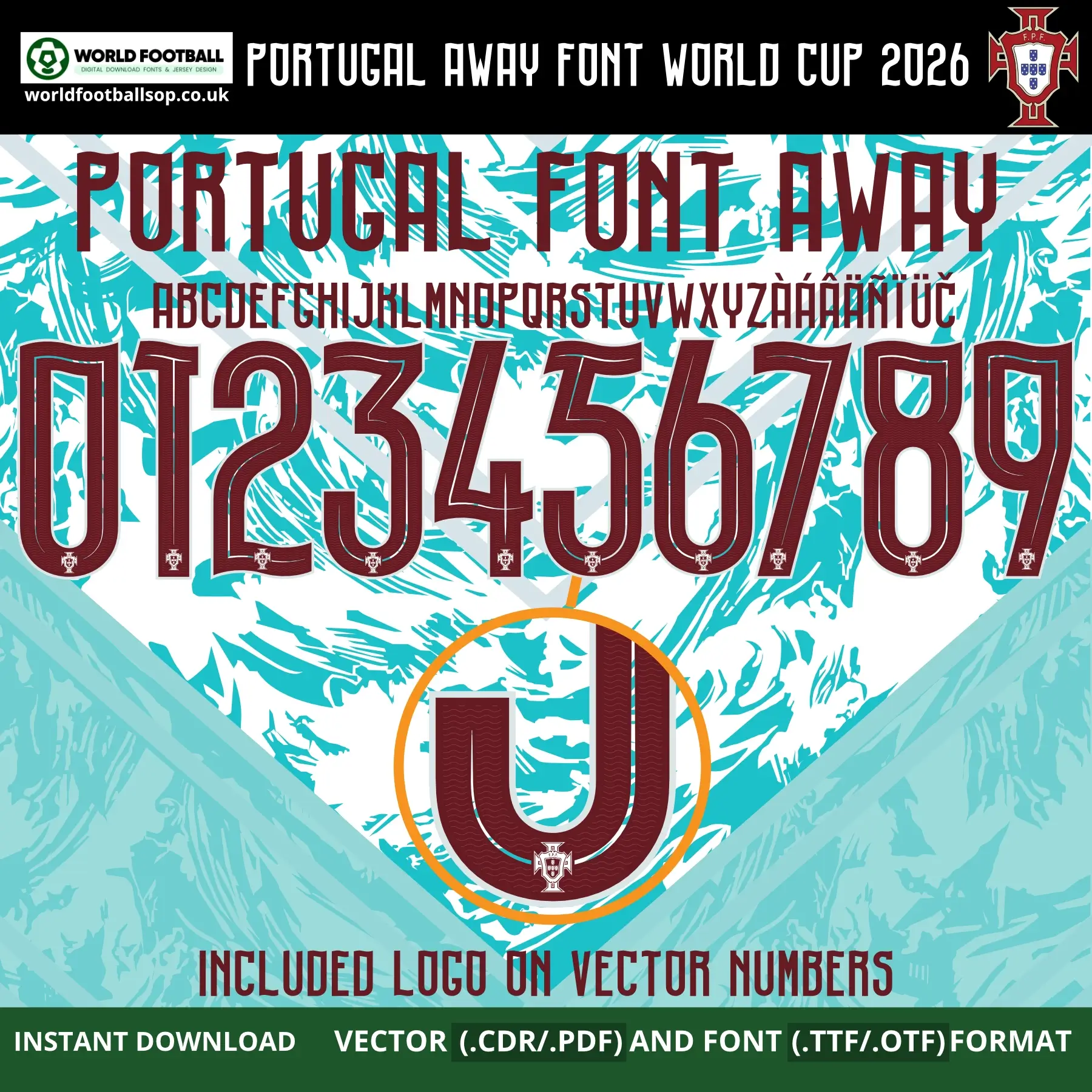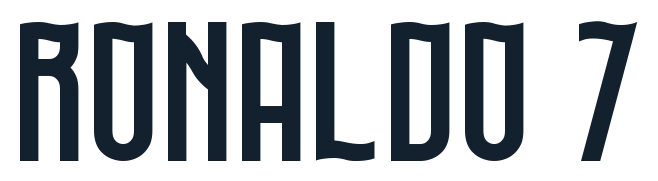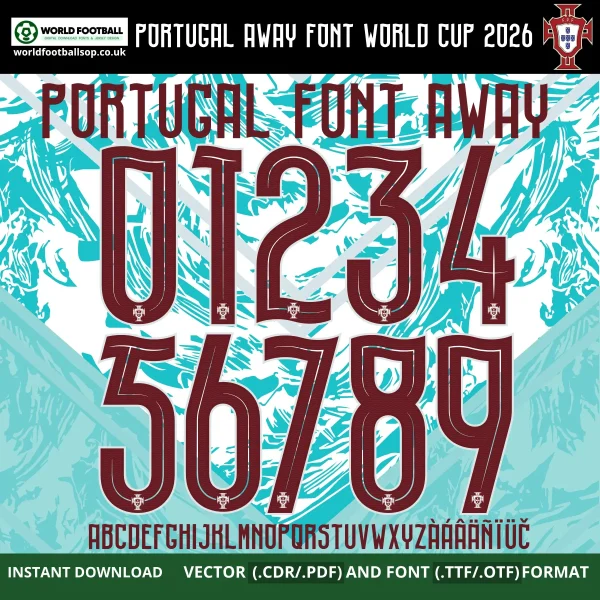
Download Portugal Away Font World Cup 2026 recreates the elegant burgundy red numbers and letters from Portugal's aquamarine away kit. TTF, OTF and vector files (CDR, PDF) with full A-Z alphabet, ã accents and 0-9 numbers including Portugal crests on vector digits for authentic Ronaldo 7 namesets.
Portugal Away Font World Cup 2026 - Aquamarine Wave Style
The Portugal Away Font World Cup 2026 pack recreates the fluid wave-inspired typeface designed for Portugal's 2026 World Cup away shirt. The letters and numbers feature thin, elegant lines in dark burgundy red with subtle outlines, perfectly matching the official away nameset shown on the aquamarine "Seafoam" kit with its ocean wave and Portuguese crest graphics.
Perfect for kit printers, collectors and designers, this pack lets you produce accurate Portugal away font football namesets for every Portugal fan jersey. Vector numbers include the small Portugal federation crest at the base, while the TTF/OTF fonts keep things clean for general design projects. Create "C. RONALDO 7" for posters, thumbnails, or custom shirts that match the official away kit style seen on TV and in stadiums.
Full uppercase A-Z alphabet plus extended Latin characters (Ã, Á, Â, Ç, É, Í, Ó, Ú, Ü) for Portuguese and international player names.
Numbers 0-9 in Portugal 2026 away kit style, ready for back, front or shorts printing.
Design highlights
Wave-inspired elegance: Thin burgundy red typography matching the Nike Portugal 2026 away kit ocean aesthetic.
Aquamarine away perfect match: Burgundy font designed for the seafoam green shirt with wave graphics and Portugal crest.
High-visibility contrast: Dark red ensures readability on light aquamarine fabric for TV broadcasts and stadium viewing.
Portugal crest integration: Vector digits include authentic FPF badge placement at number base, just like official match shirts.